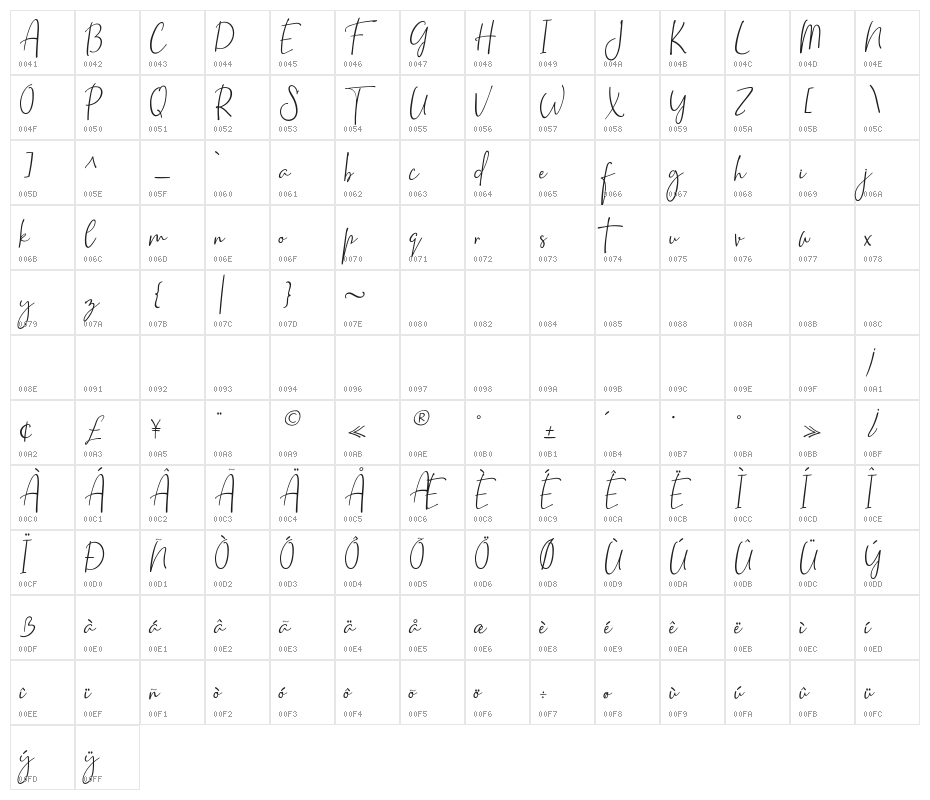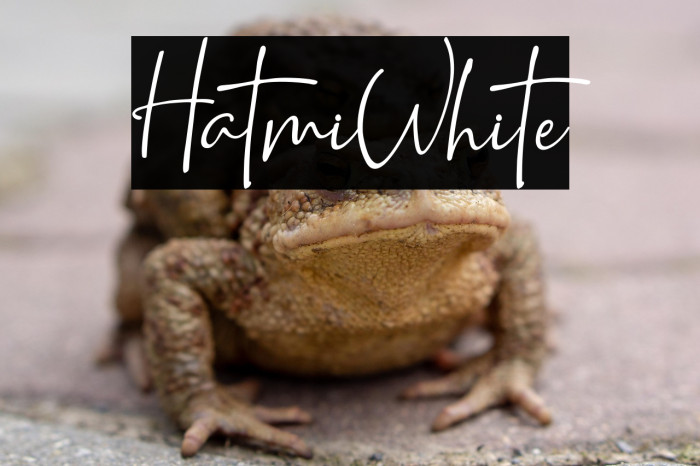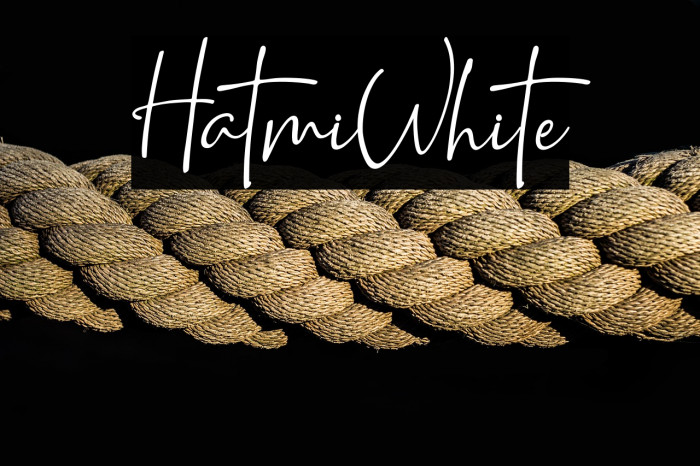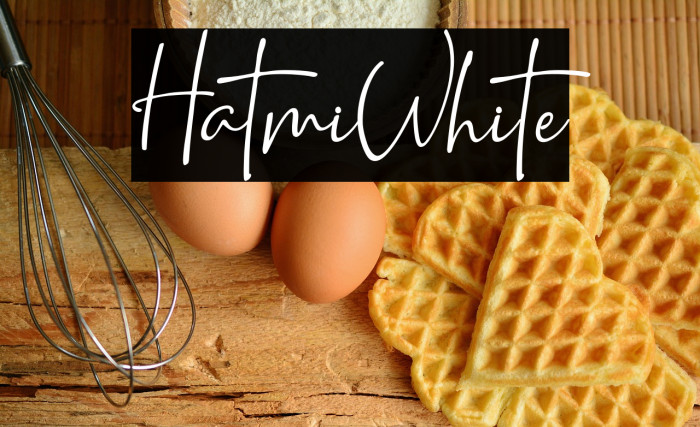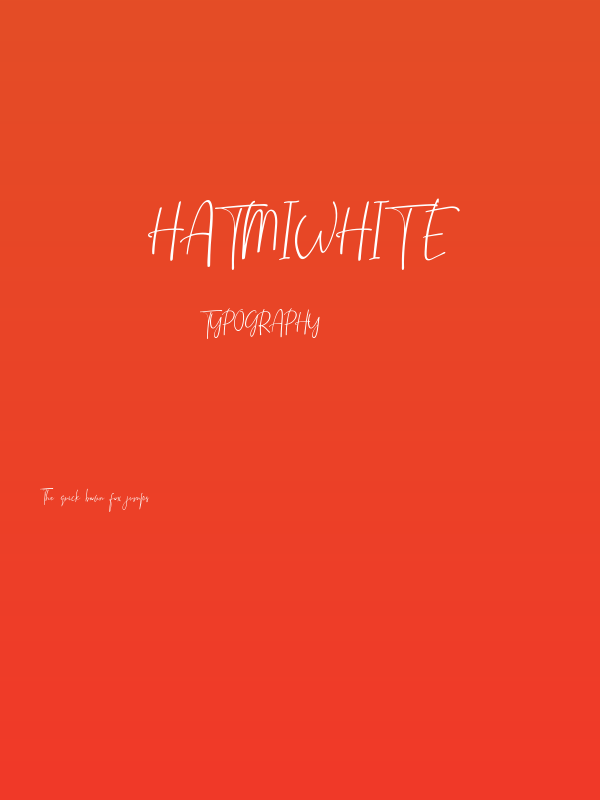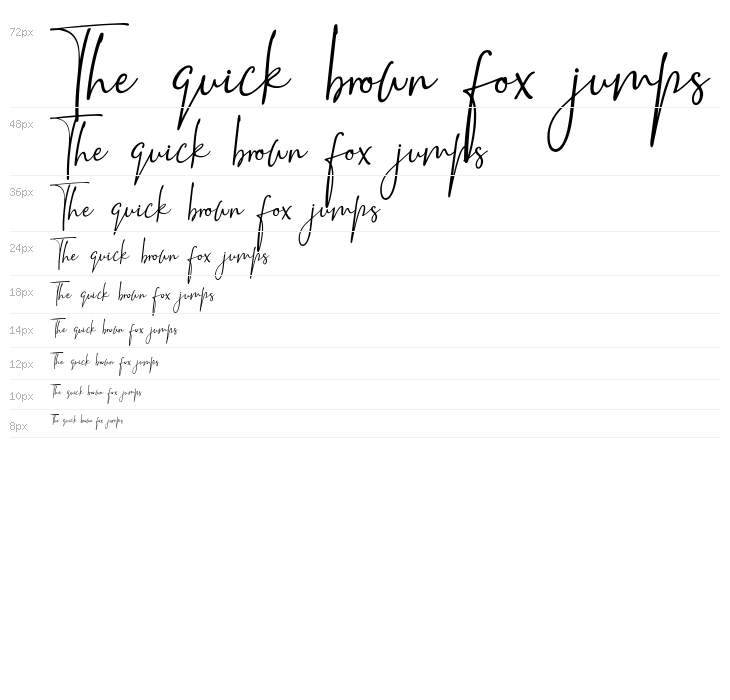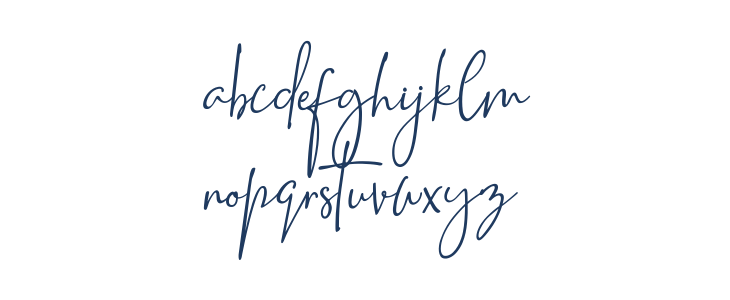
HatmiWhite Font
HatmiWhite Description
This font features a flowing, handwritten style with elegant, elongated letterforms. The characters exhibit a playful yet sophisticated appearance, with smooth curves and varying line thickness that add a dynamic quality. The uppercase letters are tall and slender, while the lowercase letters maintain a consistent fluidity, enhancing the overall aesthetic. The font's organic feel is complemented by its slightly irregular strokes, giving it a personal touch. It is well-suited for creative projects that require a touch of elegance and personality.
| Use Case | Logos, Headlines, Invitations |
| Proposed Projects | Ideal for wedding invitations, greeting cards, branding, and social media graphics. |